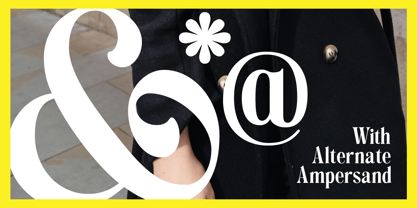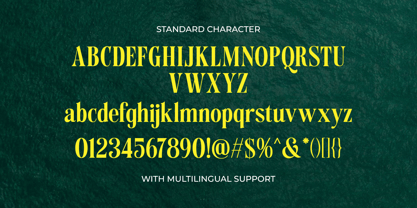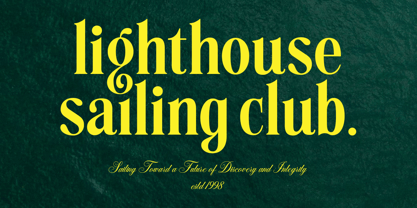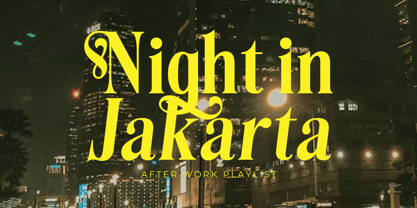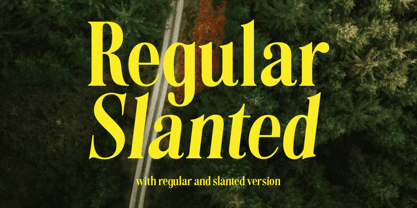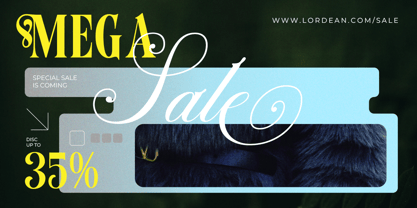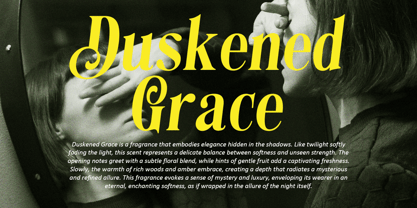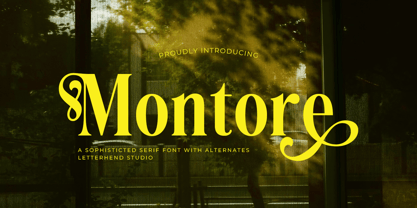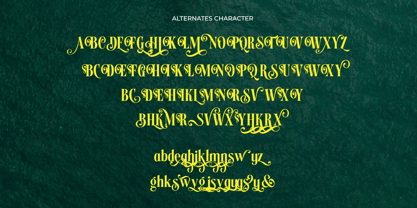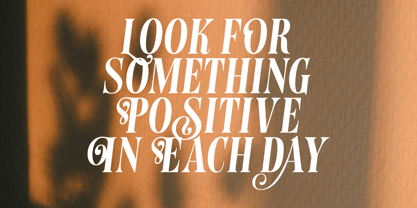
Montore
The Montore Font Family was designed by Hendry Juanda and published by Letterhend. Montore contains 2 styles and family package options. More about this family
Montore is a refined and stylish serif font that exudes elegance and timeless appeal. With its bold yet graceful letterforms, intricate alternates, and smooth ligatures, this typeface is perfect for high-end branding, luxury packaging, editorial design, and elegant invitations.
• Uppercase & lowercase
• Numbers and punctuation
• Alternates Character
• Multilingual support